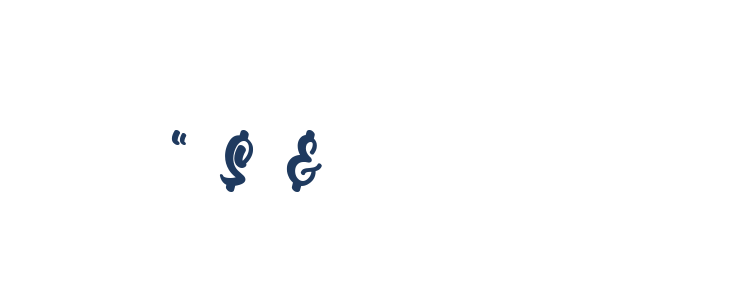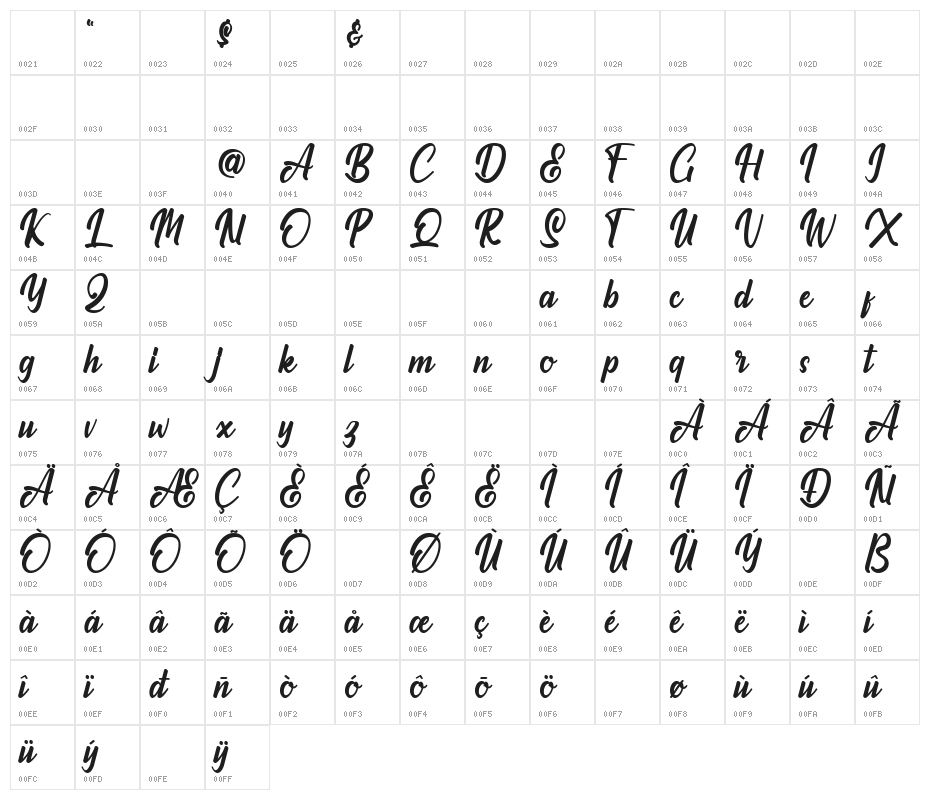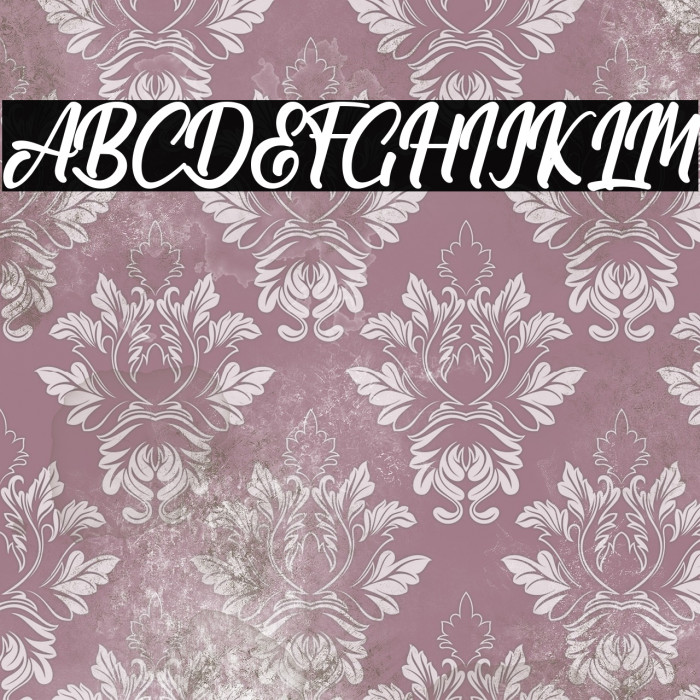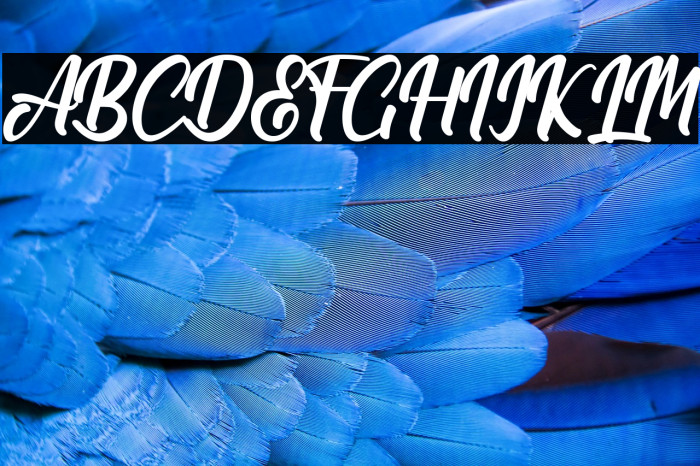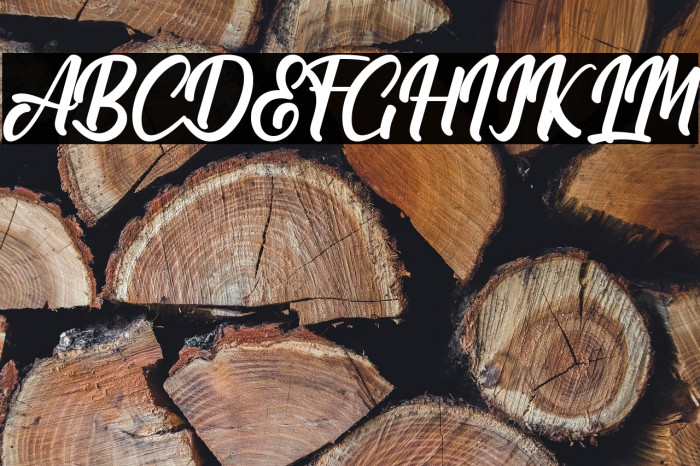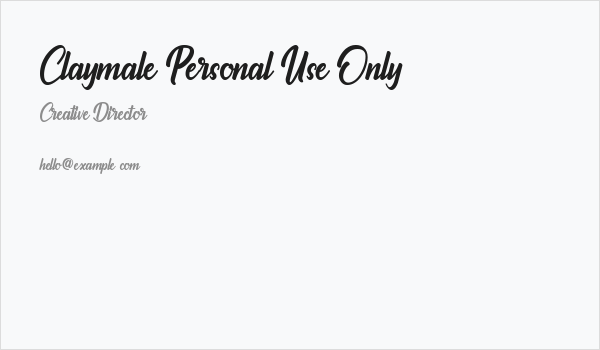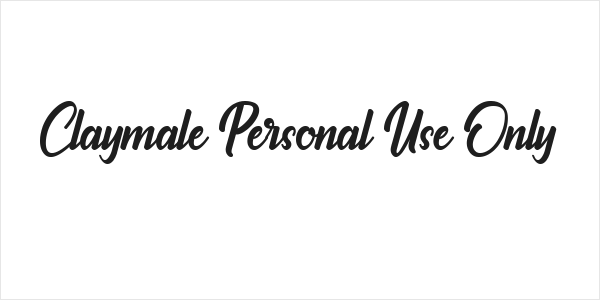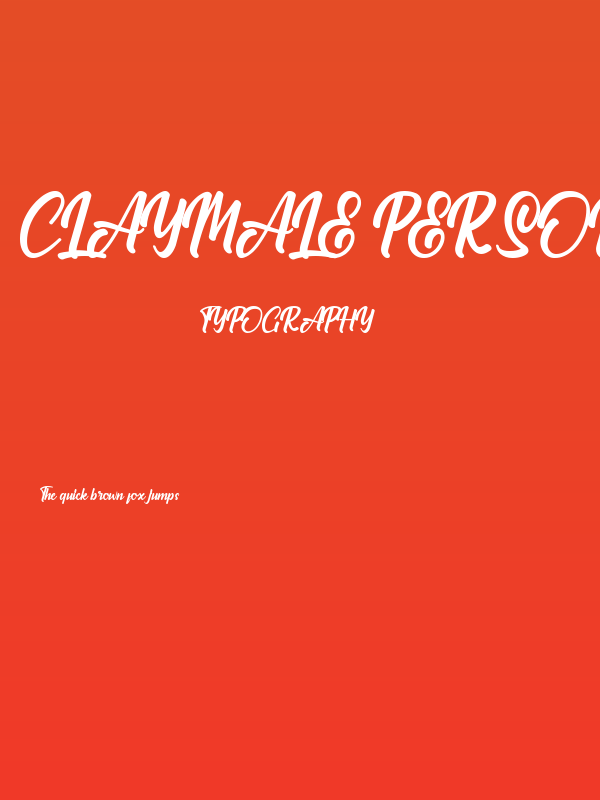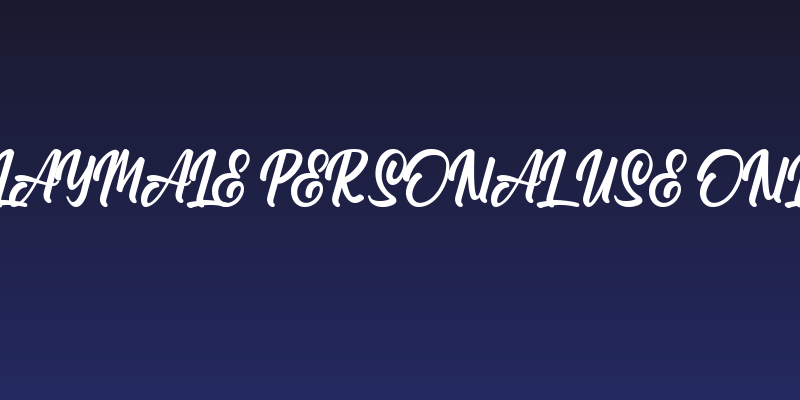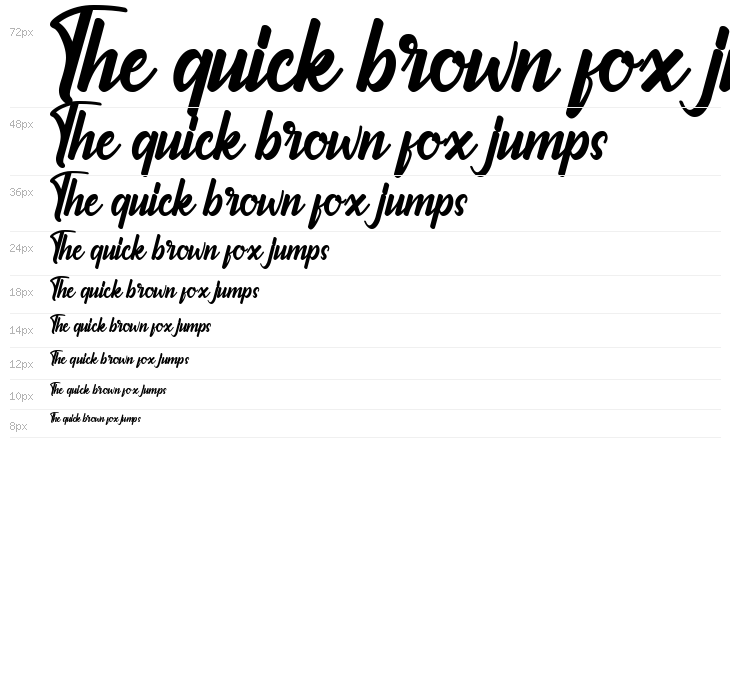
Claymale Personal Use Only Font
Claymale Personal Use Only Description
This font showcases a bold and expressive script style, characterized by its flowing, cursive letterforms. The uppercase letters are particularly ornate, with sweeping curves and flourishes that add a sense of elegance and movement. The lowercase letters maintain a consistent style, with smooth connections between characters that enhance readability while preserving the decorative nature of the script. The numbers and special characters are designed to match the overall aesthetic, ensuring a cohesive look across all text. This font is ideal for projects that require a touch of sophistication and flair.
| Proposed Projects | Ideal for wedding invitations, branding, logos, and elegant packaging designs. |